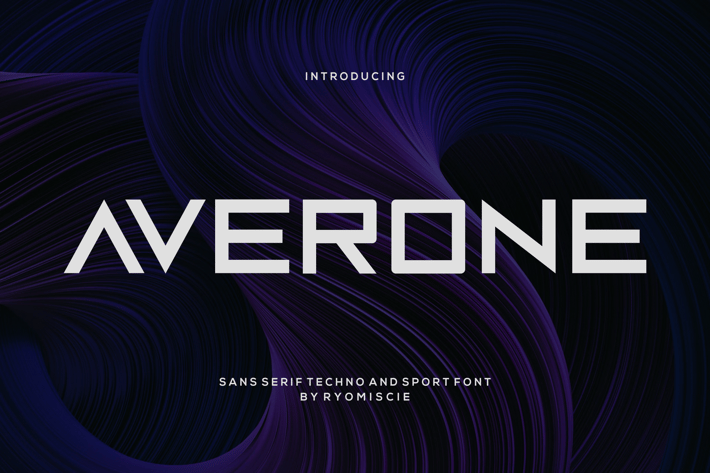
Averone - Sans Serif Techno And Sport Font
Introducing our new product Averone - Sans Serif Techno And Sport Font
Averone - Modern Font is a bold and authentic display font. The font is suitable for any branding project like logo,
t-shirt printing, esport, and many more. outstanding in a wide range of contexts.